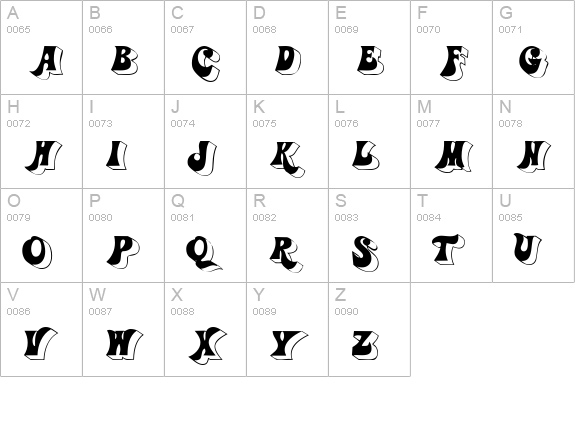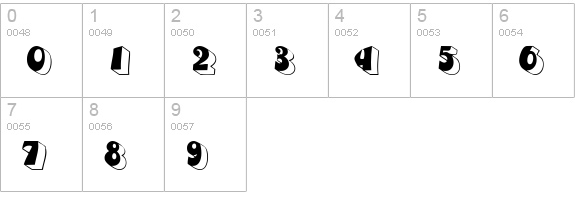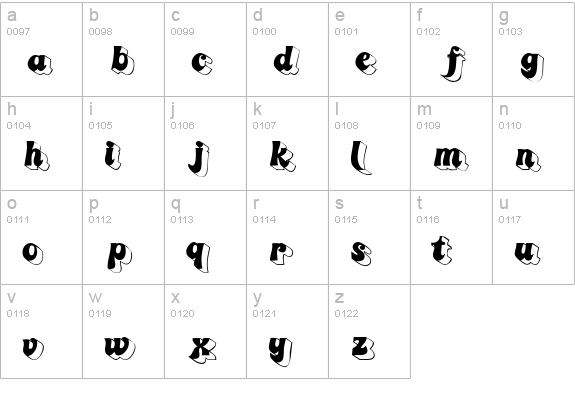
GummyDisplay Font Details
Introducing GummyDisplay font, a delightful and playful typeface that will add a touch of whimsy to your designs. This fun and quirky font features rounded edges and a bouncy appearance, making it perfect for projects that need a lighthearted and friendly feel. GummyDisplay is a versatile font that can be used for a variety of purposes, from branding and packaging to social media graphics and children's book illustrations. Its unique style will make your text stand out and grab attention, while still maintaining readability. And the best part? GummyDisplay is completely free to download at FontsMarket.com! So go ahead and add this charming font to your collection today and let your creativity run wild with endless possibilities.